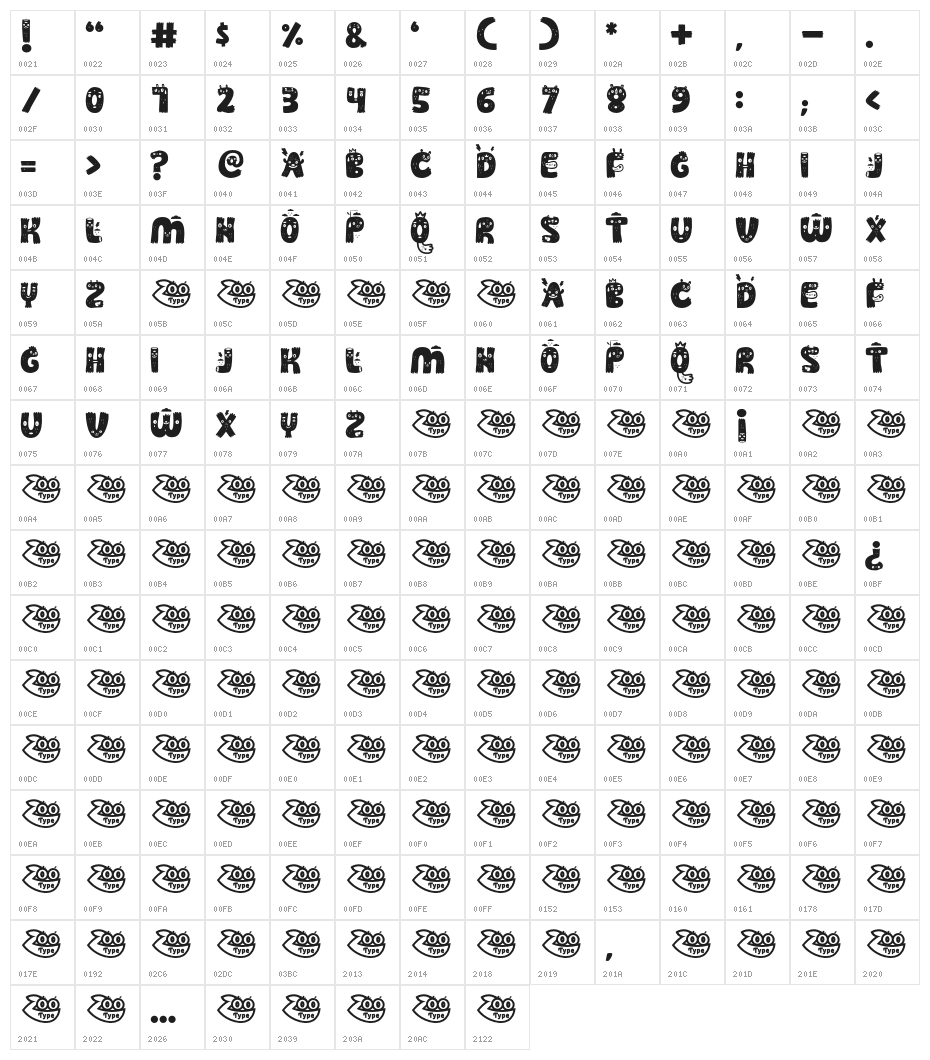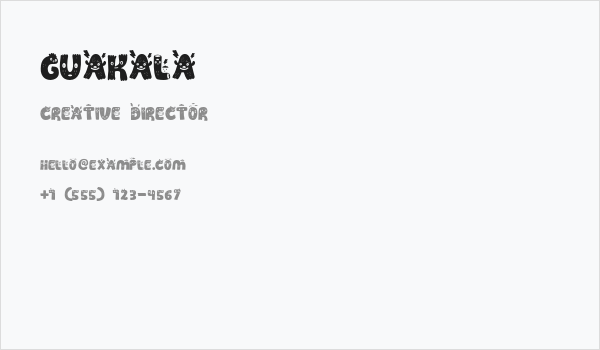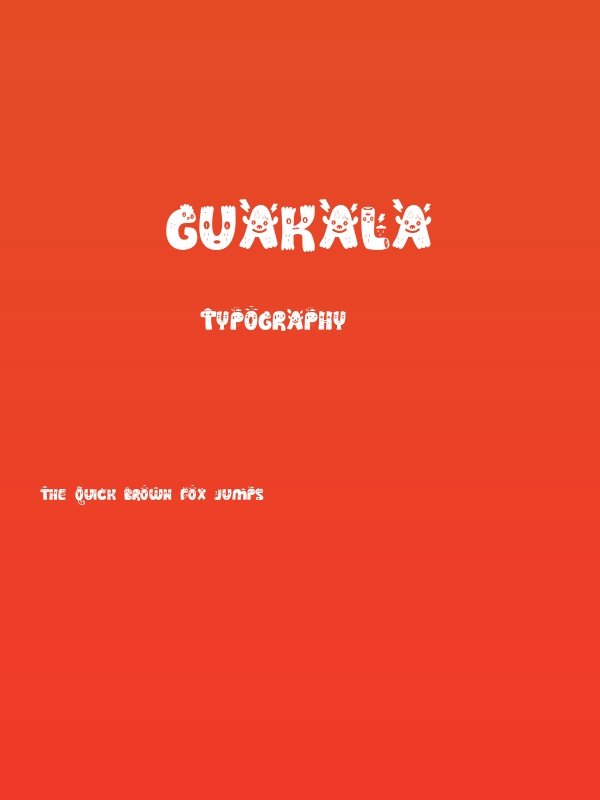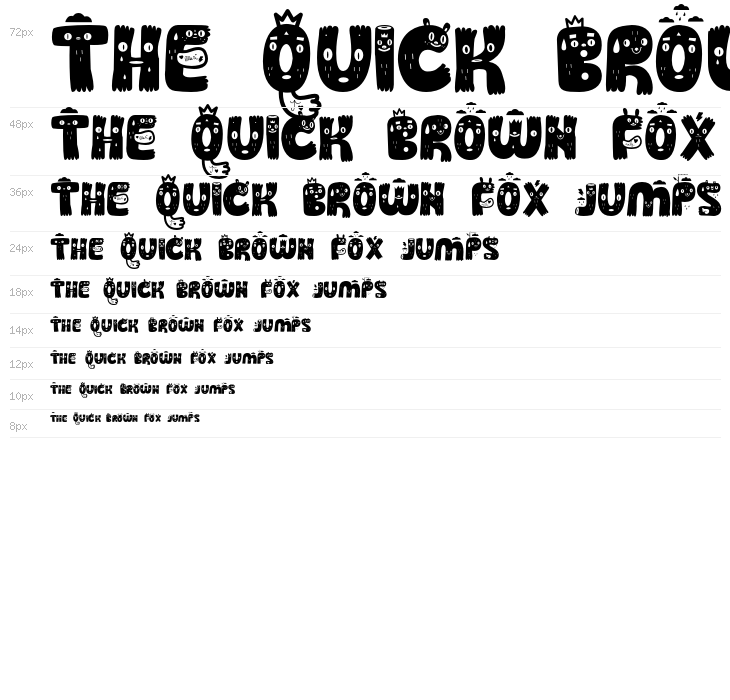
Guakala Font
Guakala Description
This playful and whimsical font features bold, rounded characters with quirky, cartoon-like faces integrated into each letter and number. The design is highly decorative, with each character appearing as a unique creature, complete with eyes and various expressions. The font is characterized by its thick strokes and uniform weight, creating a cohesive yet lively appearance. The letters are slightly condensed, enhancing the playful nature of the design. This font is perfect for projects that require a fun and engaging visual element, such as children's books, playful branding, or creative posters.
| Overall Style | Playful, Whimsical, Decorative |
| Proposed Projects | Ideal for children's books, playful branding, creative posters, and fun merchandise. |